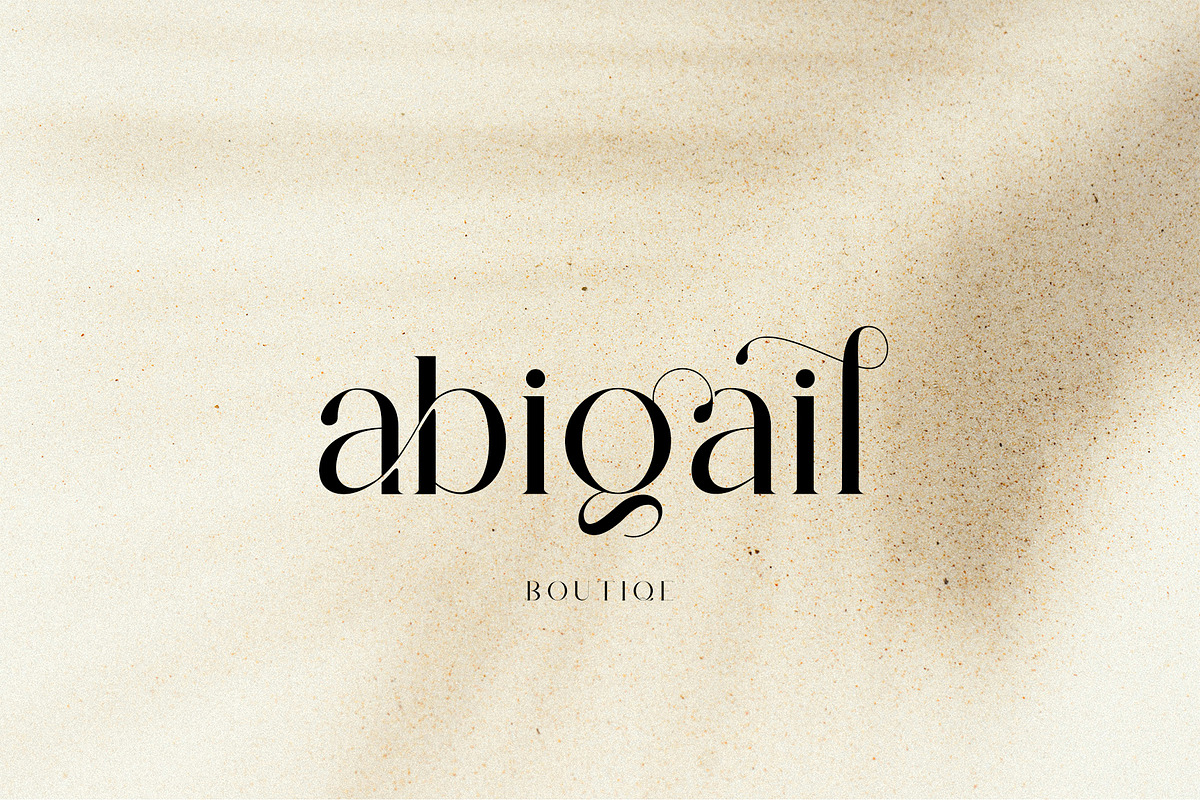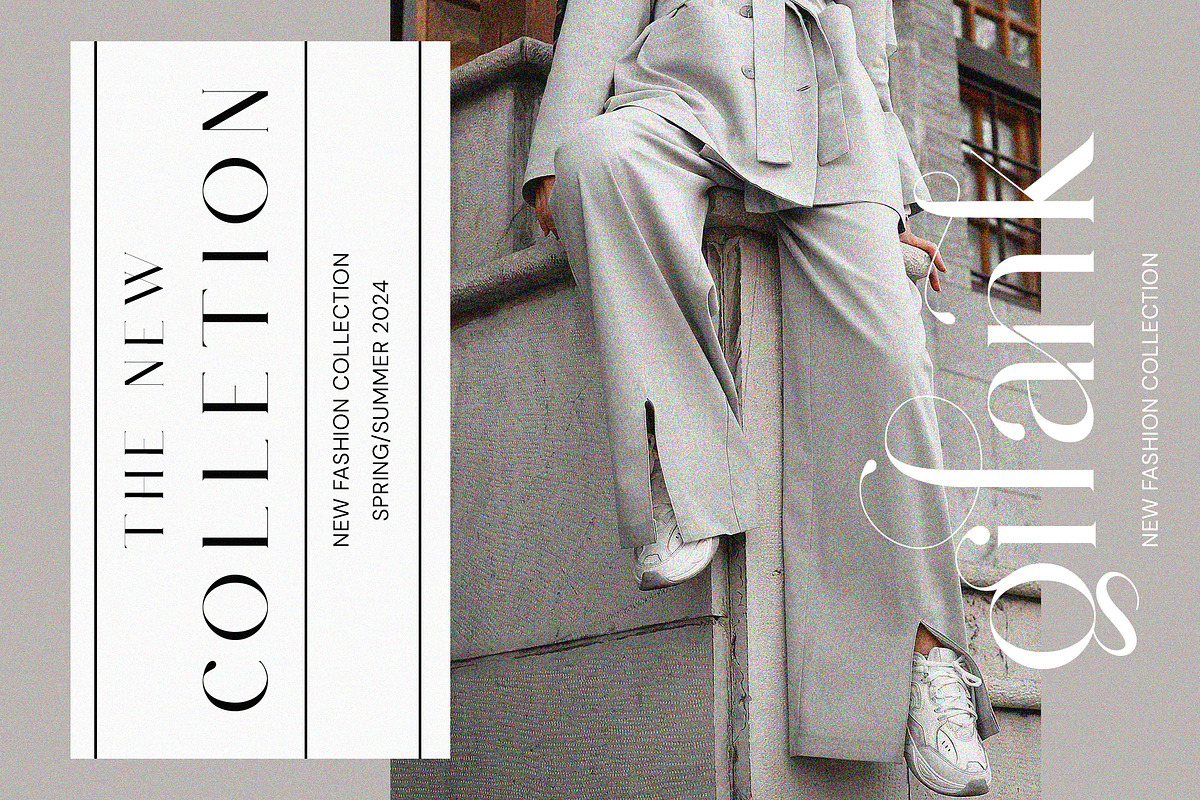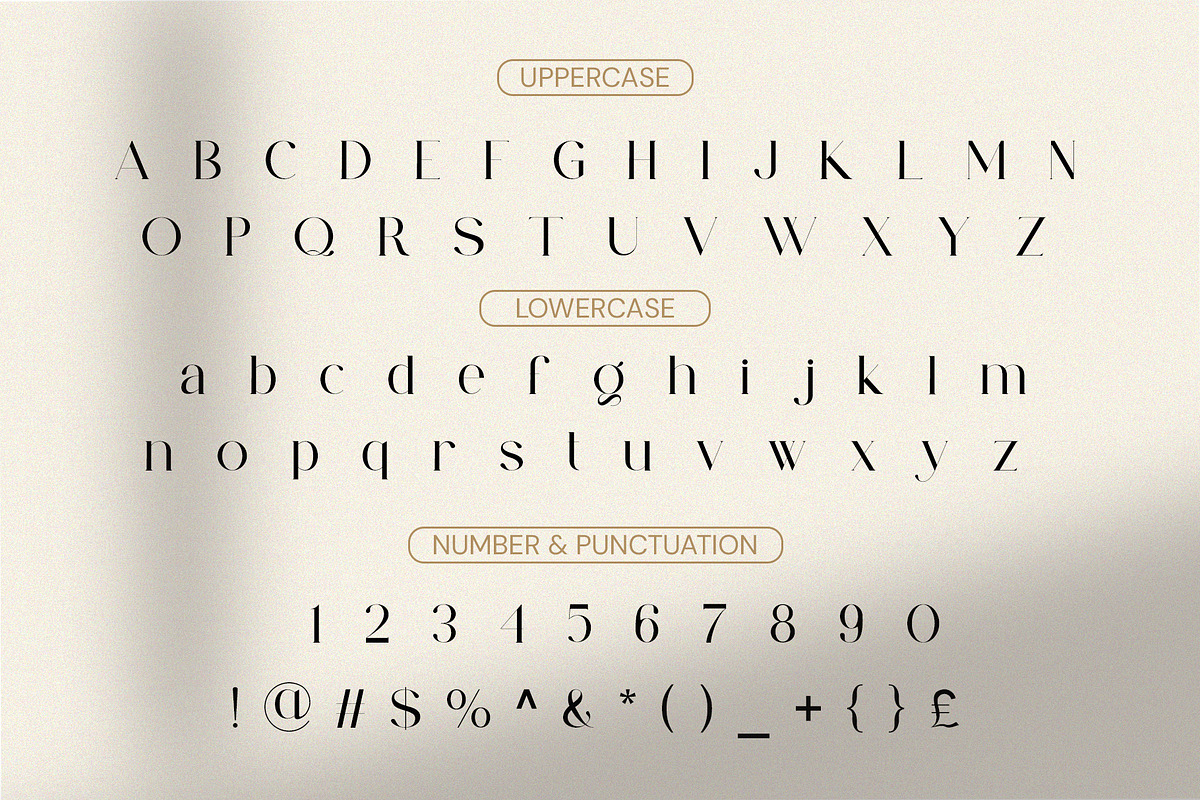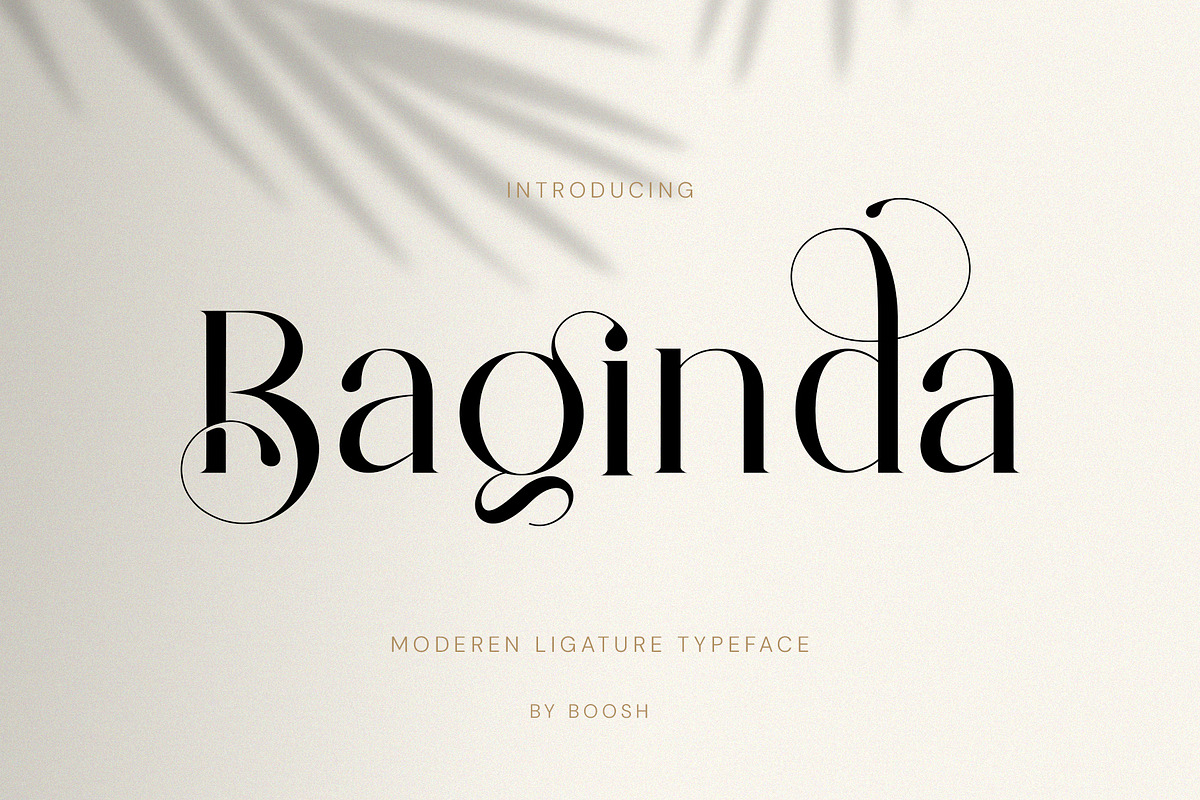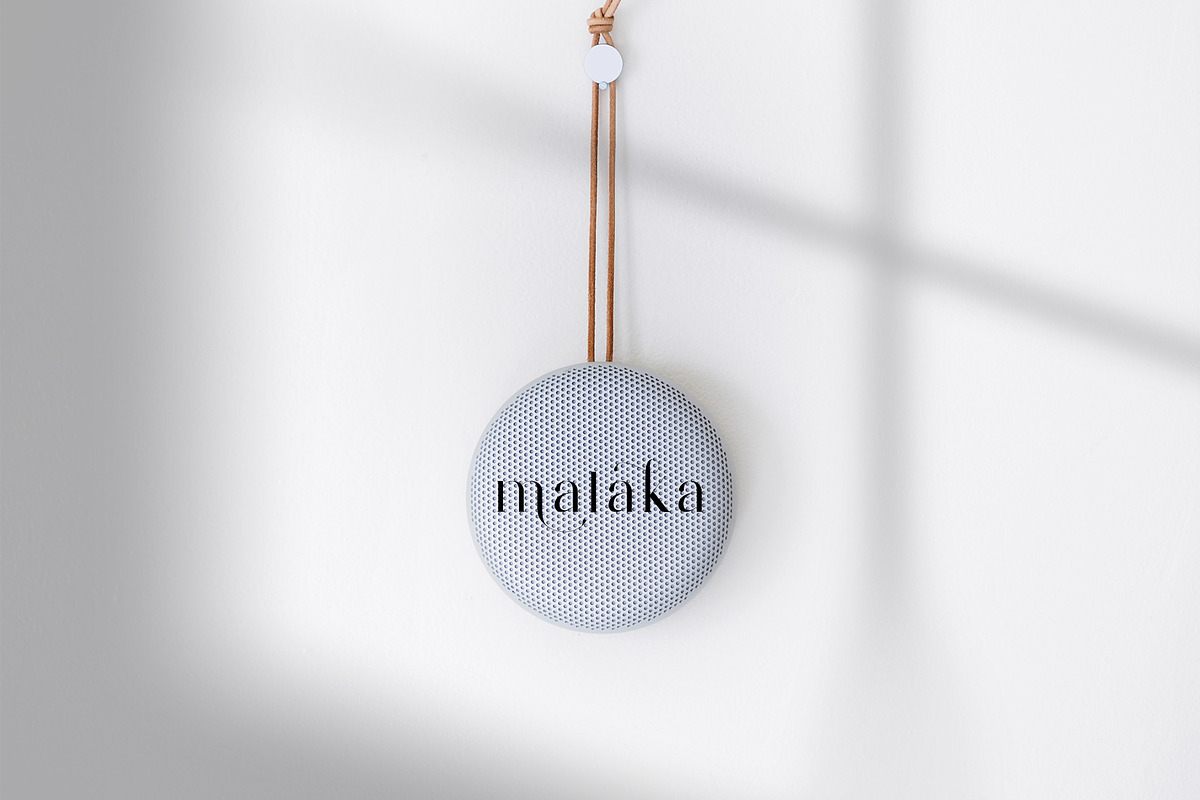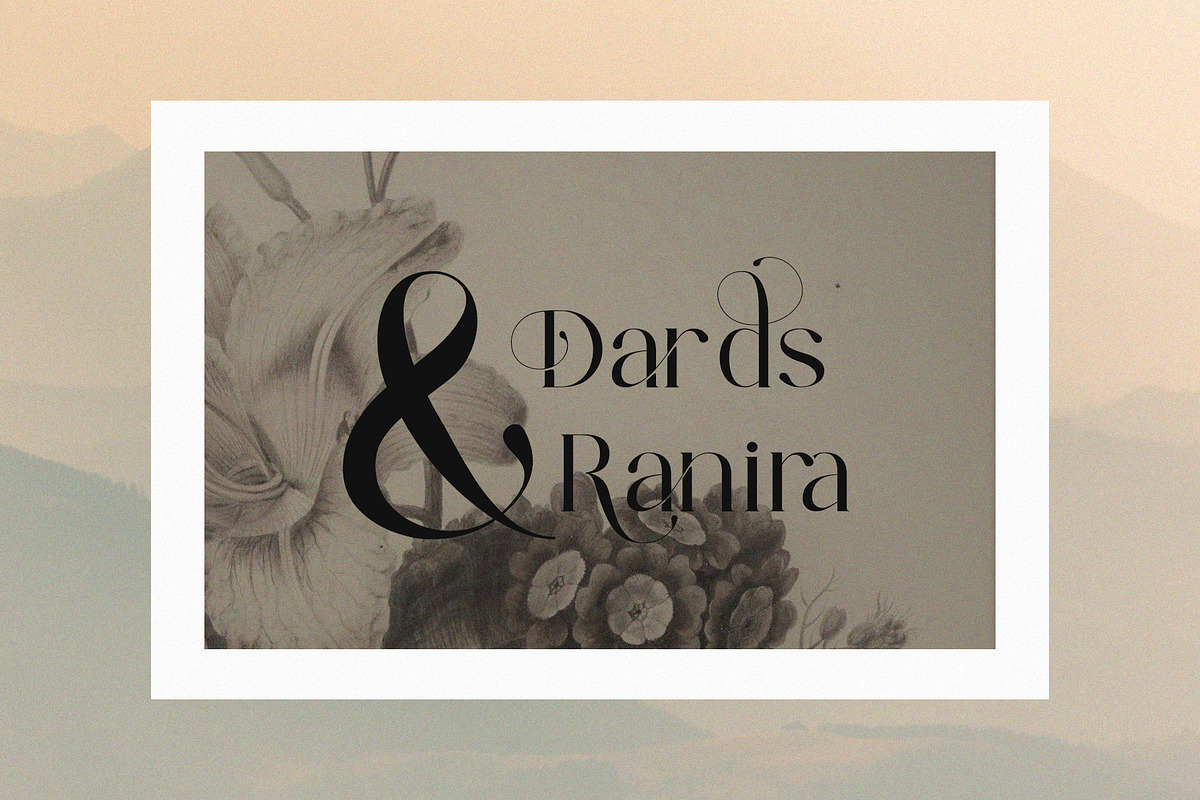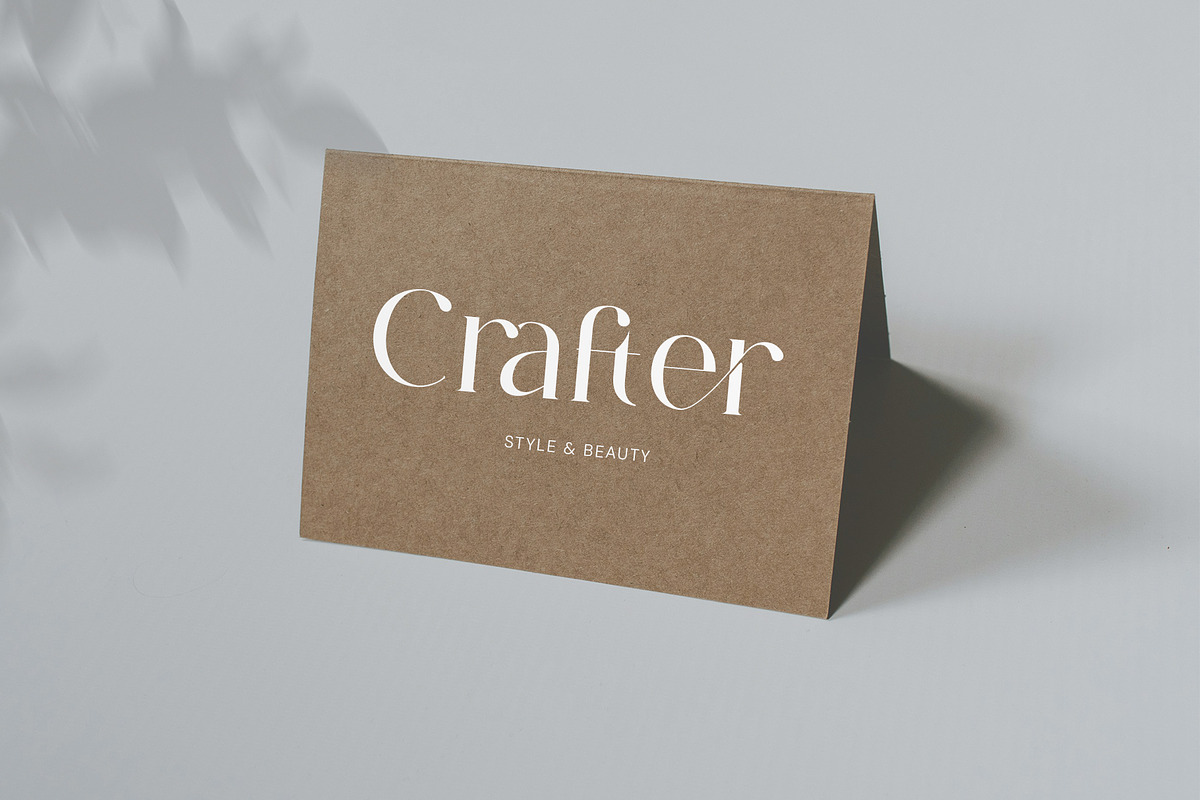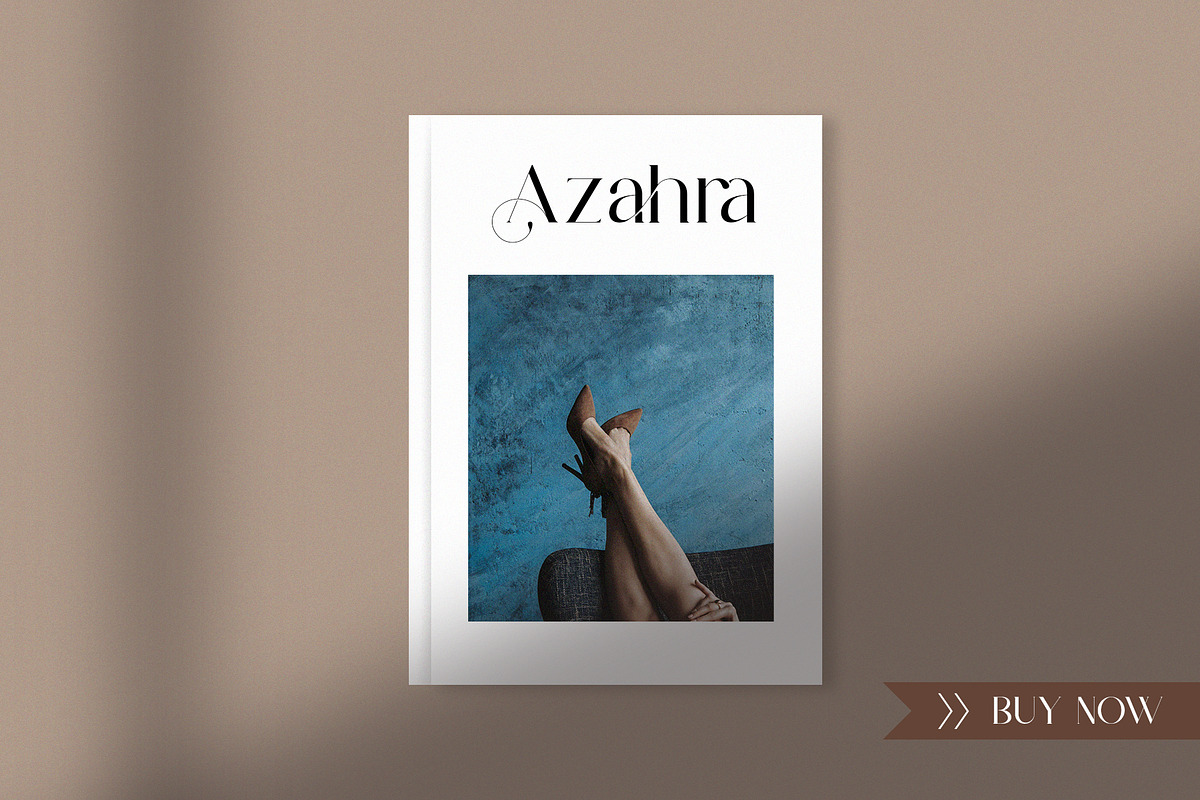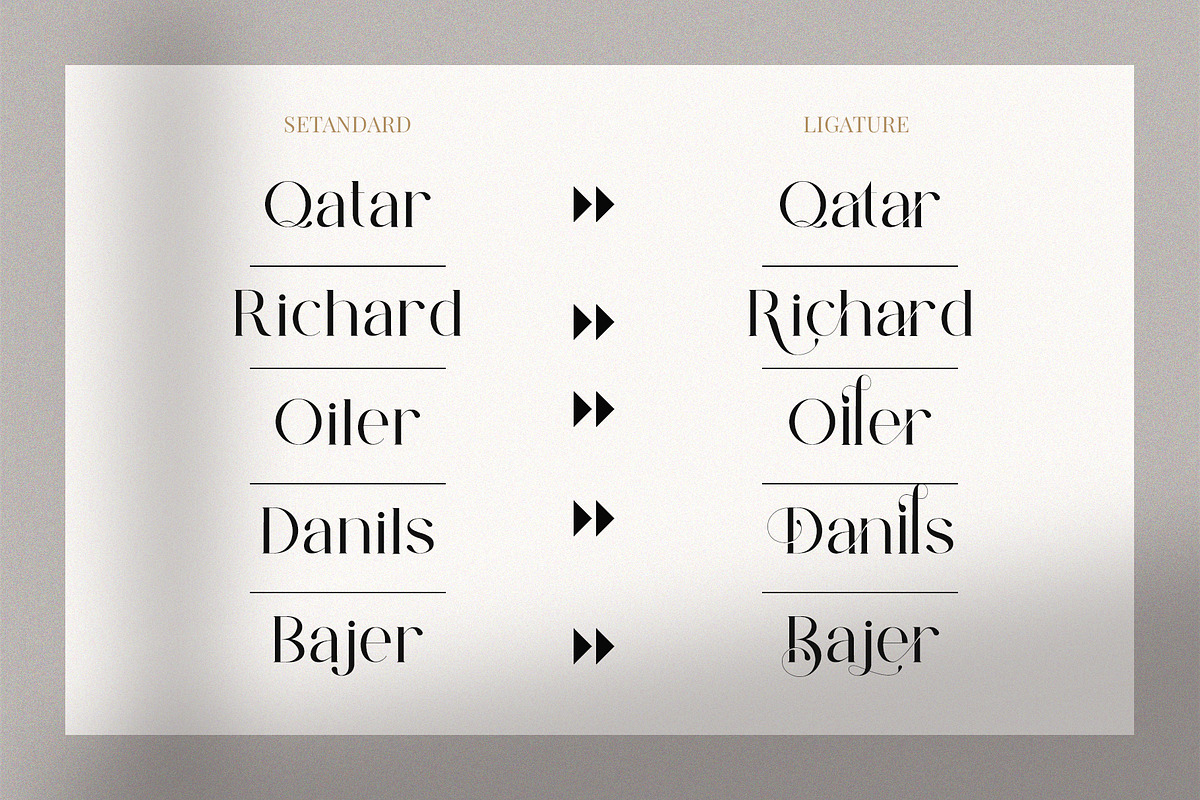
Baginda - Modern Ligature Typeface
Baginda Serif is a balanced, smooth, elegant and stylish serif font. He has a beautiful character. It fits perfectly with invitation card designs, company logos, movie titles, movie names, business cards, book titles, brand names and various other designs.